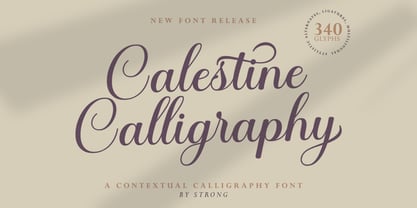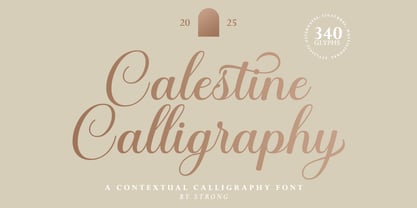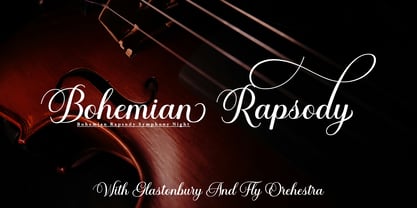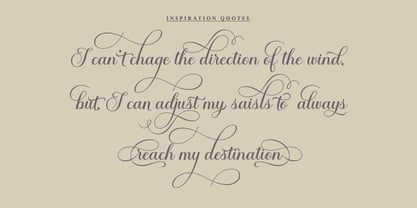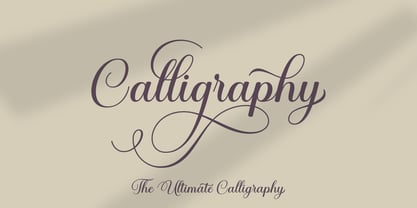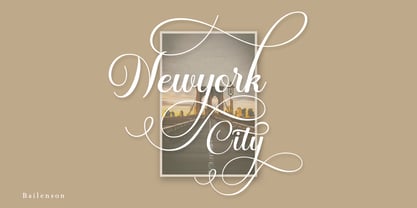
Calestine Calligraphy
by Strong
The Calestine Calligraphy Font Family was designed by Nanda Putra Sukmayadi and published by Strong. Calestine Calligraphy contains 1 styles. More about this family
Calestine Calligraphy
Is a calligraphy Vintage script font that comes with beautiful alternate characters. copper plate mix calligraphy with handlettering style. Designed to convey stylish elegance. Calestine Calligraphy attracts like a typeface that is smooth, clean, feminine, sensual, glamorous, simple and very easy to read.
Calestine Calligraphy comes with a Clean and Aged version, beautiful upper and lower case, binding and loved by many finishes. It has Multilingual support (Western European characters) and works with the following languages: English, Danish, Dutch, Estonian, Finnish, French, German, Hungarian, Icelandic, Italian, Norwegian, Polish, Portuguese, Spanish, Swedish.
In my example I show how this script can be used. It's perfect for logos, wedding invitations, alcohol labels, romantic cards, and more.
Designers: Nanda Putra Sukmayadi
Foundry: Strong